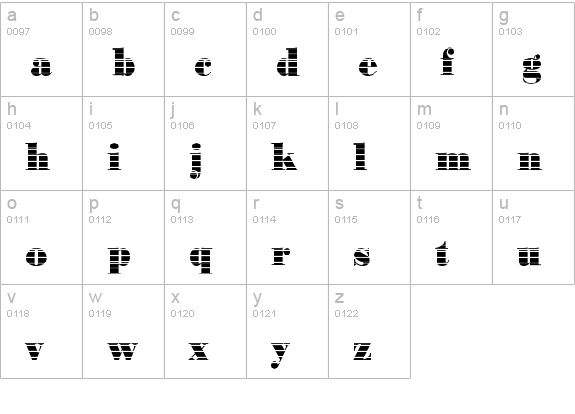
BodoniInkjet-Regular is the standard, neutral variant in the BodoniInkjet typeface family \xE2\x80\x94 well suited to general body text, paragraphs, and standard typographic work.
BodoniInkjet-Regular font is a sleek and modern typeface that exudes sophistication and elegance. Its clean lines and sharp edges make it perfect for a wide range of design projects, from branding to editorial layouts. The font's versatility allows it to be used in both print and digital media, making it a valuable addition to any designer's toolkit. What sets BodoniInkjet-Regular apart is that it is available for free download at FontsMarket.com. This means that designers can access this high-quality font without any cost, making it a budget-friendly option for projects of all sizes. Whether you're working on a personal project or a client commission, BodoniInkjet-Regular is sure to impress with its timeless style and professional appeal. Download this font today and elevate your designs with its classic charm.